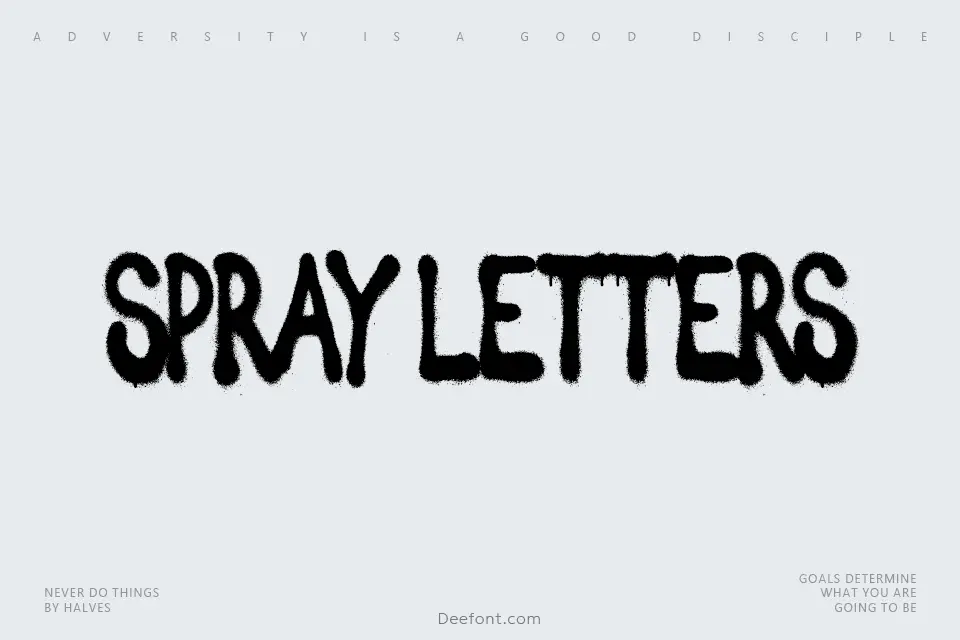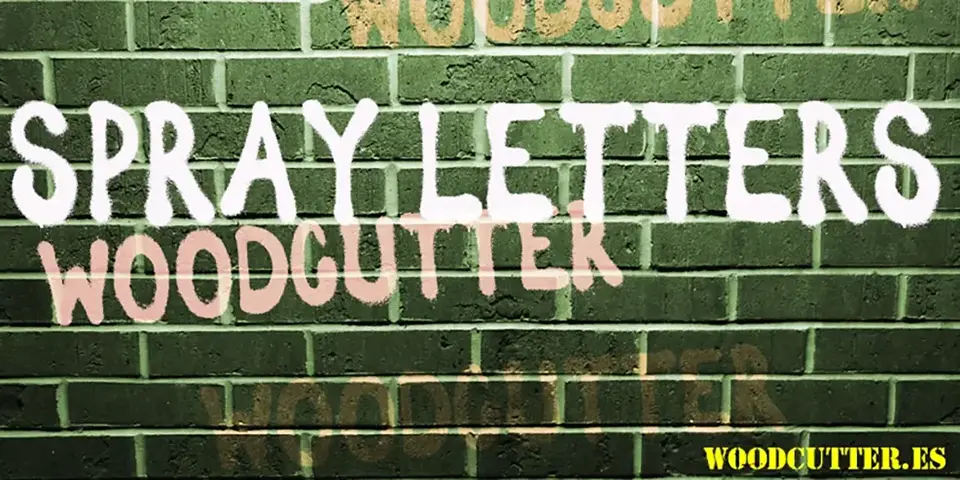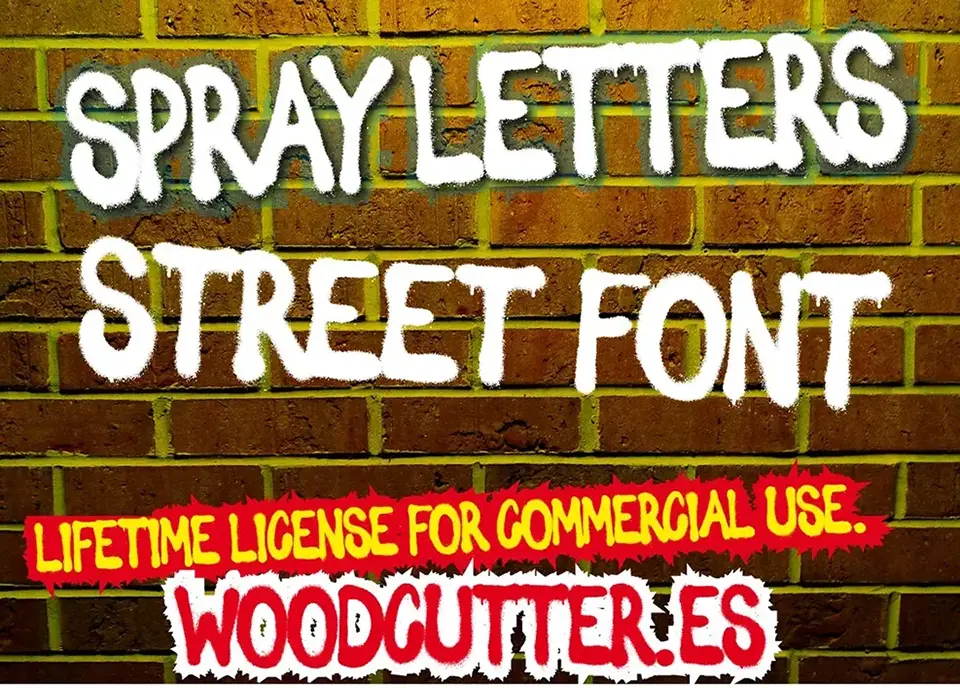
Spray Letters Font
Spray Letters is a distinctive script and graffiti-style font designed for creative professionals seeking an edgy, urban aesthetic. With its bold spray-painted characteristics and expressive letterforms, this typeface excels at capturing the raw energy of street art and contemporary design. Perfect for logos, posters, social media graphics, and eye-catching headline typography, Spray Letters brings a dynamic street culture vibe to any creative project.